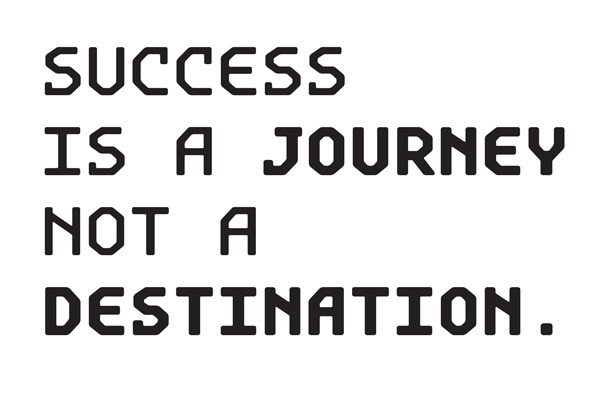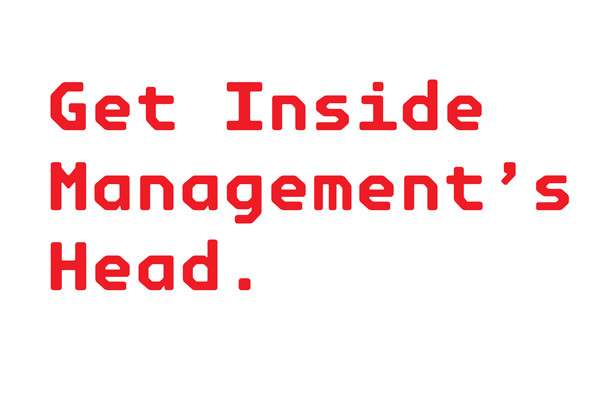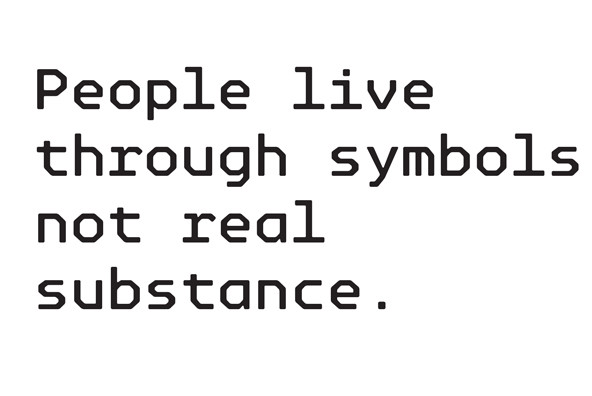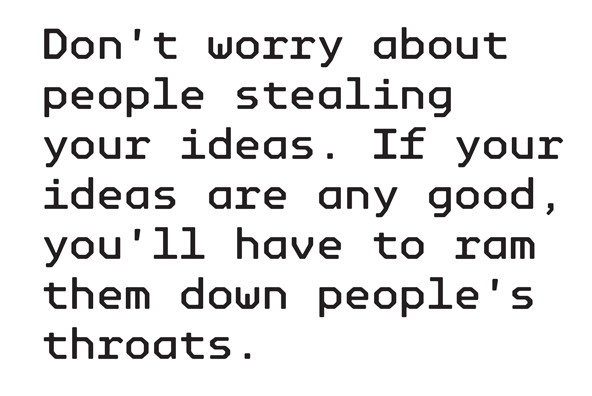
Octa Mono
Octa Mono fonts are primarily intended for heading, display and decorative use. A close relative to Alert, Octa is angular by its structure but soft-outlined typeface with modern industrial strength expression. Octa Mono is two weight fonts of upper and lower case monospaced characters.